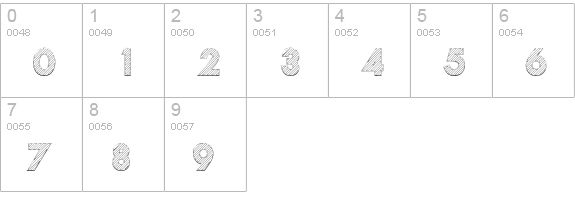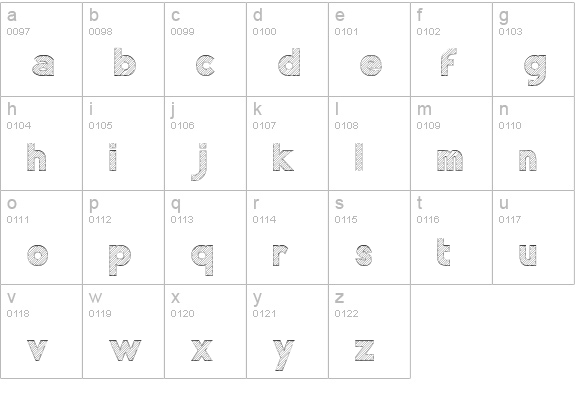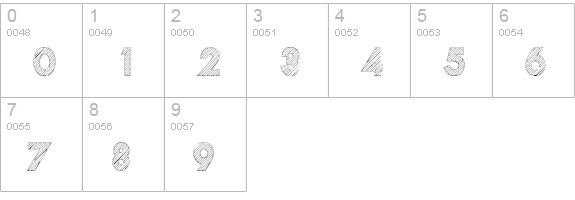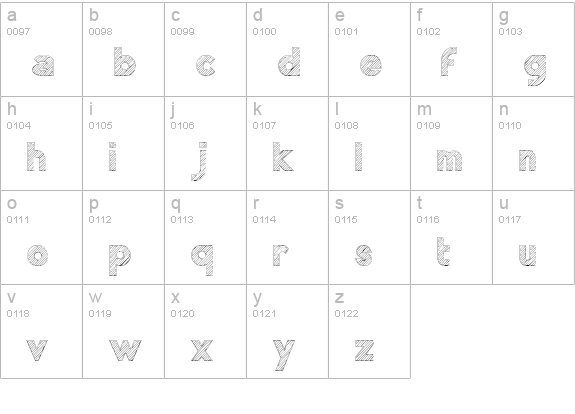
Malabars Tryout Font Details
Introducing Malabars Tryout, a captivating and stylish font that will elevate your designs to new heights. Designed with precision and creativity, this font exudes a sense of modernity and sophistication. With its clean lines and elegant curves, Malabars Tryout is perfect for a wide range of design projects. Whether you're working on branding, advertising, packaging, or any other creative endeavor, this font will effortlessly enhance your work and leave a lasting impression. One of the standout features of Malabars Tryout is its versatility. It is equally at home in both bold and subtle designs, making it a go-to choice for designers looking to make a statement. The fluidity of the strokes gives the font a dynamic and energetic feel, while the carefully crafted letterforms ensure legibility and readability in any size or format. But perhaps the most enticing aspect of Malabars Tryout is that it is freely available to download at FontsMarket.com. Yes, you read that right – this remarkable font can be yours without any cost. This means you can bring a touch of elegance and sophistication to your designs without breaking the bank. So why wait? Unlock the creative potential of your projects with Malabars Tryout. Download it today from FontsMarket.com and let your designs come to life with this stunning and freely available font.